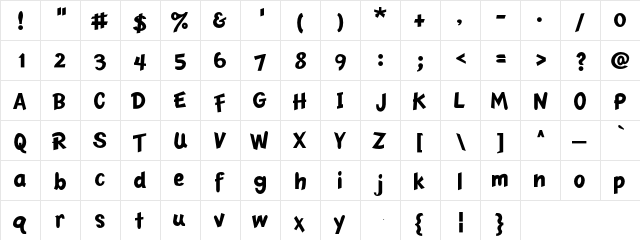
NuCasualDemo Regular
Design Context for NuCasualDemo Typeface
NuCasualDemo is a composed and adaptable typeface that performs quietly and consistently across a wide range of design contexts.